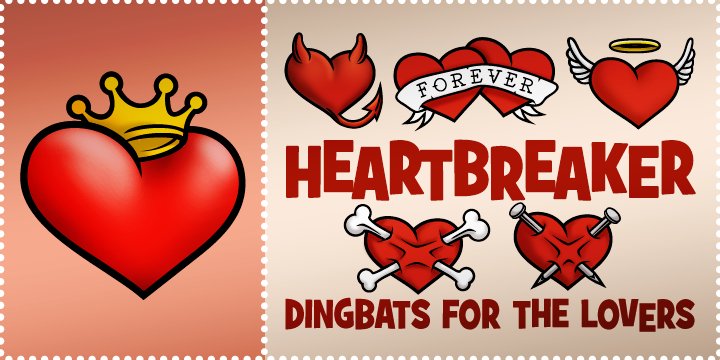
Heartbreaker is a dingbat typeface loaded with the kind of love-lorn inspiration that tattoos of devotion are made of. Perfect for Valentine’s Day, romantic gestures, and heart-felt designs.